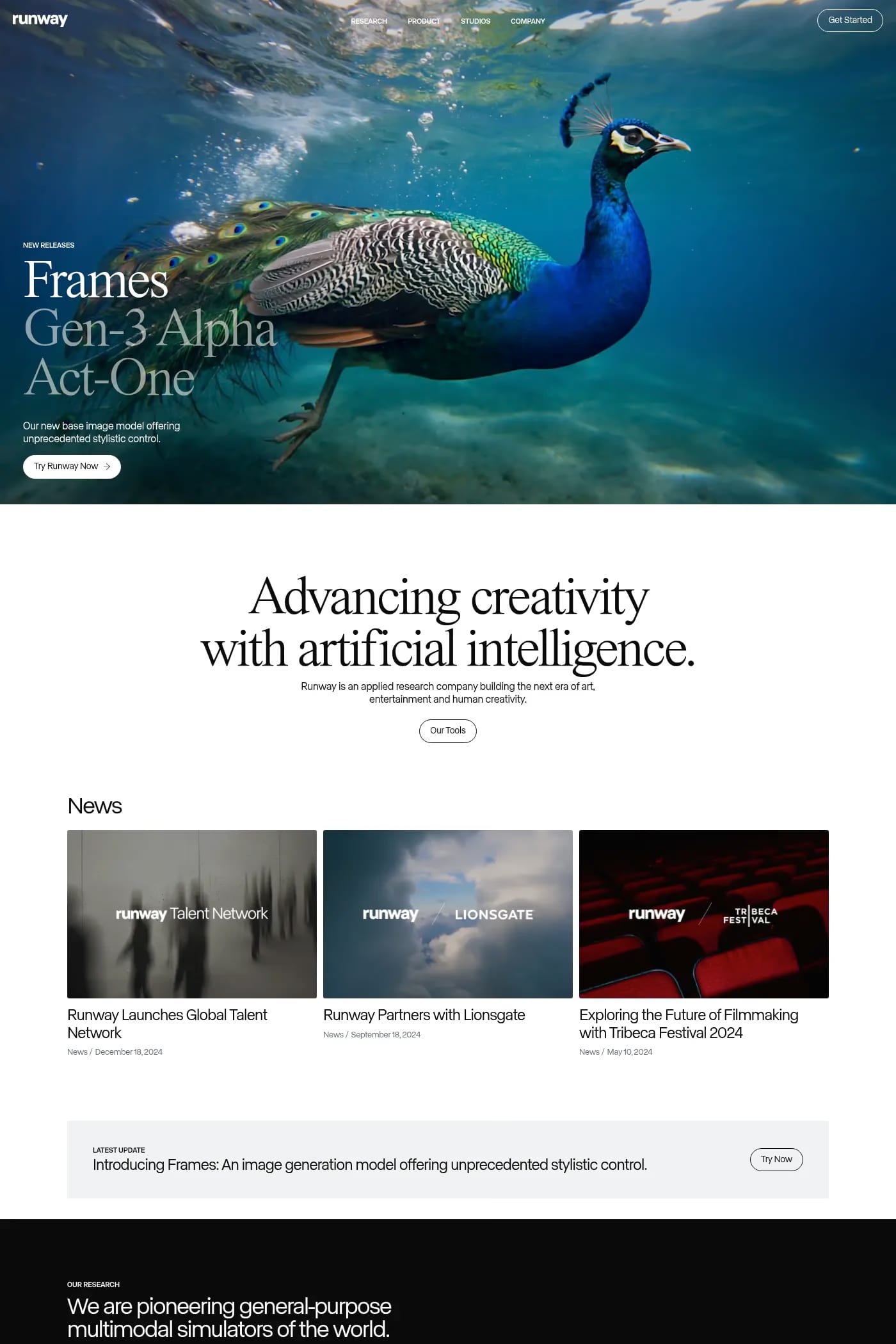
Normal is a sans-serif typeface from Dinamo.
Normal is a working horse for the Modern Grotesk Canon, result of study of the models from Theinhardt, Renner, Novarese & Gerstner; avoiding to reveal a personal style, designed to be Timeless & Versatile.